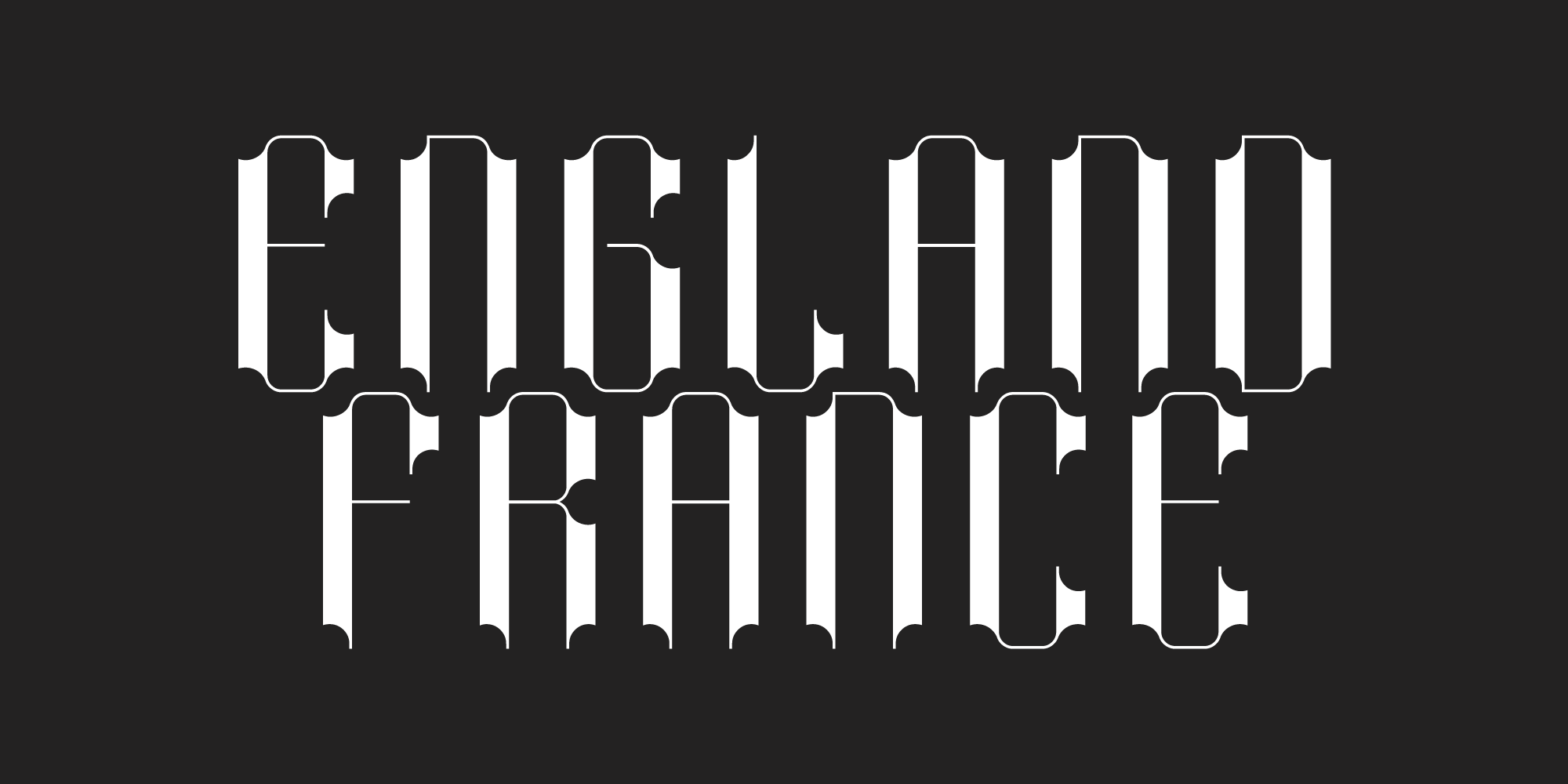
Modern Gothic Font Free Download is a bold and striking typeface that combines elements of traditional gothic design with a contemporary, sleek twist. Its sharp lines and angular shapes give it a strong presence, making it ideal for projects that need to stand out, such as branding, posters, headlines, and logo design.
The font’s distinctive, edgy appearance adds an element of drama and sophistication, while its clean structure ensures readability across both large and small formats. Whether you’re working on a vintage-inspired project or something modern and trendy, Modern Gothic Font provides the perfect blend of style and substance.
Make a bold statement with your designs by incorporating Modern Gothic Font Free Download. Its unique and strong character will bring a touch of elegance and power to your creative work.